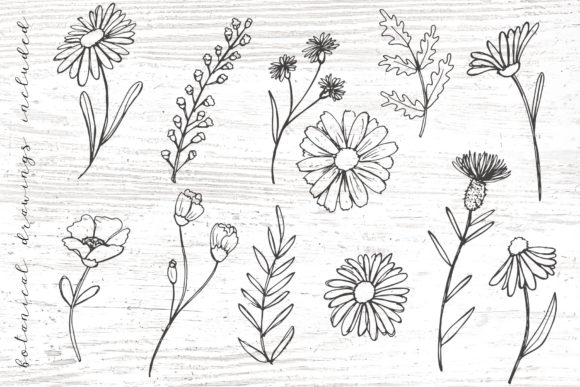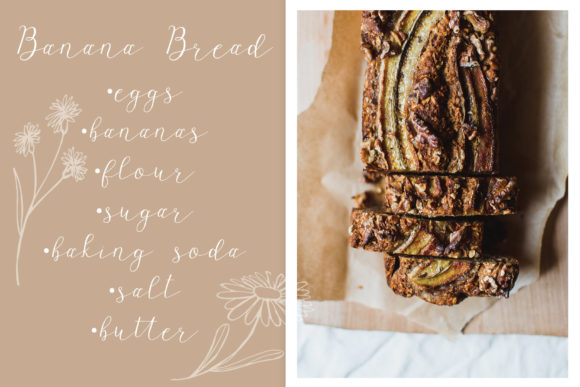
Wagonwheel Font
db-ku.com - Script & Handwritten -- Wagonwheel is a delicate handwritten script that evokes the feeling of sunrise on an easy summer day, the comfort of a cup of tea, and the beauty of wildflowers gently blowing in the wind. I lovingly wrote each character by hand and they retain their slight imperfections and personality.